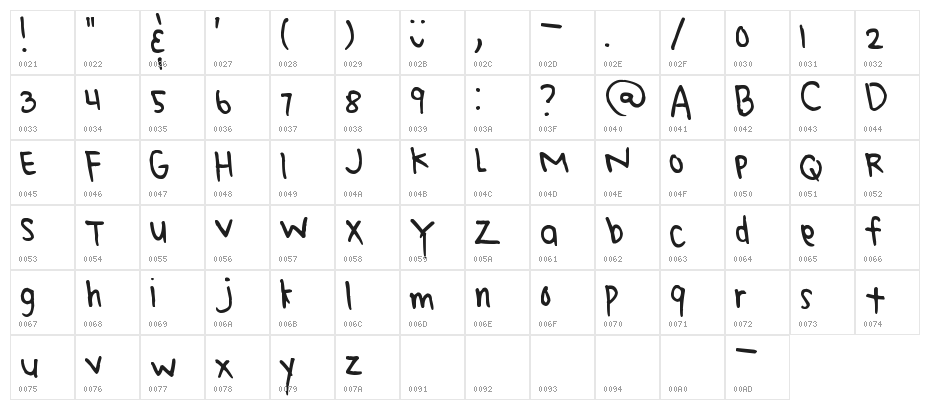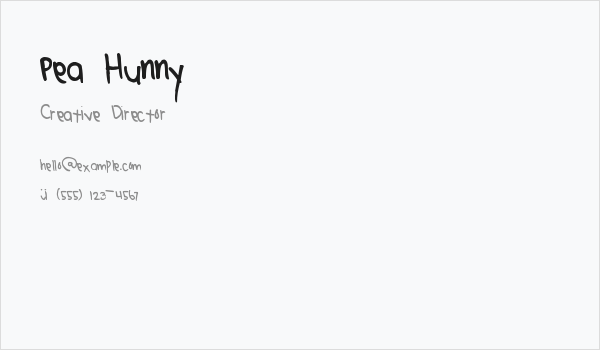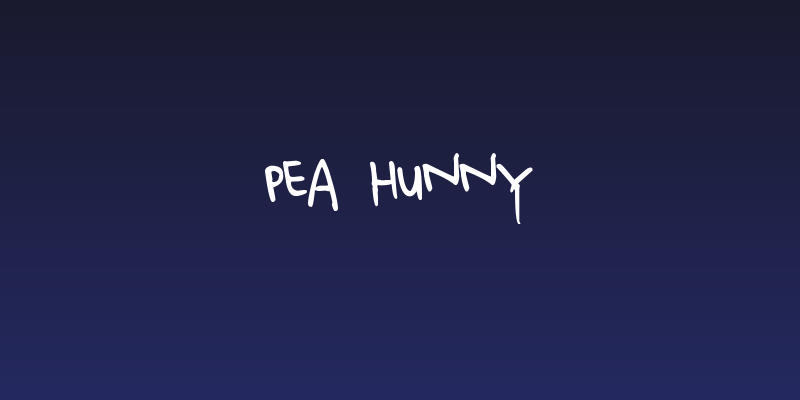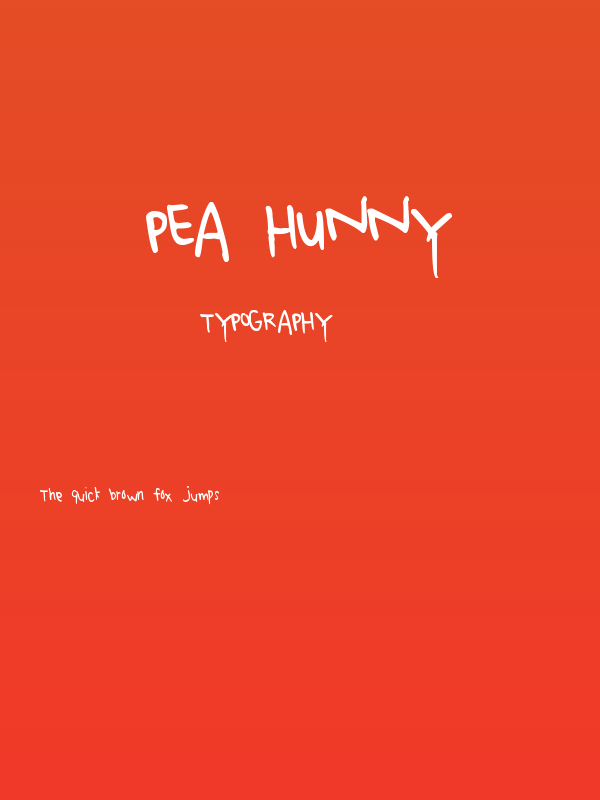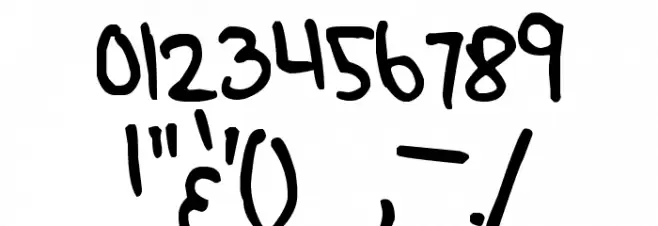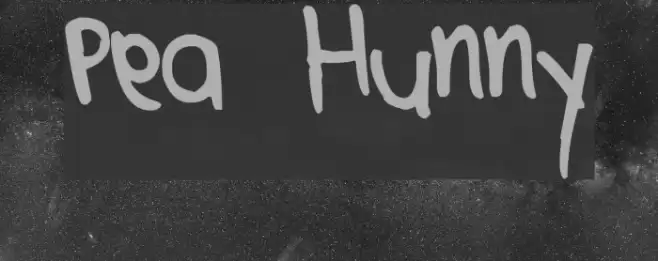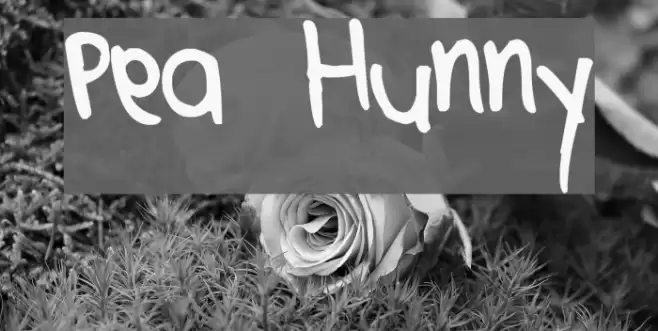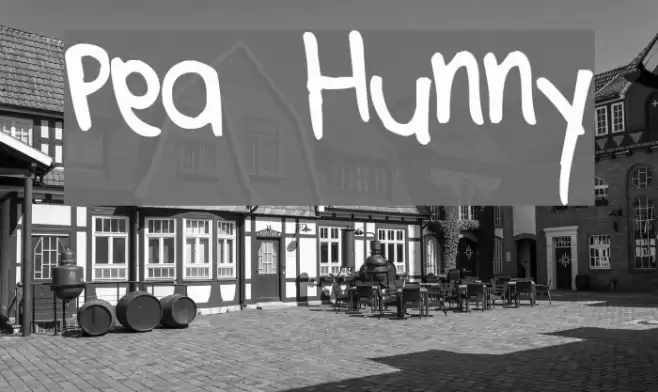
Pea Hunny Font
Pea Hunny Description
This font exudes a playful and casual handwritten style, characterized by its irregular and organic letterforms. The strokes are uneven, giving it a personal and informal touch, reminiscent of a quick note or doodle. The uppercase and lowercase letters maintain a consistent style, with rounded edges and a slightly tilted appearance, enhancing its whimsical nature. The numbers and special characters follow the same playful aesthetic, making it suitable for projects that require a friendly and approachable feel.